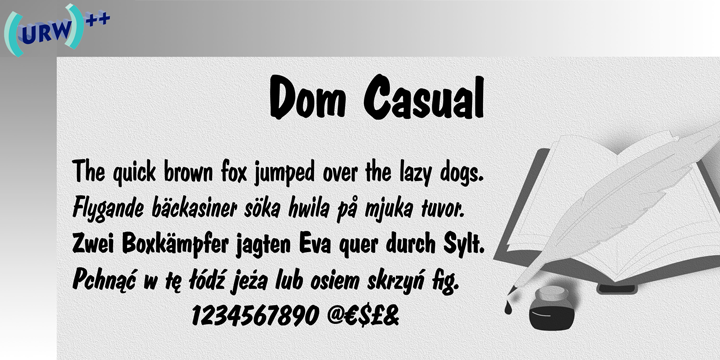
Dom Casual Font is perfect for greeting cards, children's books, party invitations, casual branding projects, playful logos, educational materials, craft projects, and social media graphics. This versatile typeface brings a friendly and approachable feel to any design project.
What makes Dom Casual Font exciting is its unique handwritten appearance that combines readability with personality. The font features slightly irregular letterforms that give it an authentic, human touch while maintaining excellent legibility across different sizes. Its casual charm makes it stand out from traditional serif and sans-serif fonts, offering designers a fresh alternative for projects that need warmth and approachability.
The Dom Casual Font family includes regular weight with uppercase and lowercase letters, numbers, and essential punctuation marks. Some versions may include additional weights or stylistic alternates depending on the specific release.
Whether you're working on personal projects or professional designs, Dom Casual Font Free Download provides an excellent solution for adding character to your typography. The font's versatility makes it suitable for both digital and print applications, from website headers to poster designs. Its informal style works particularly well in contexts where you want to establish a connection with your audience through friendly, accessible communication. The handcrafted feel of this typeface ensures your designs will have a distinctive, memorable appearance that stands out in today's crowded visual landscape.